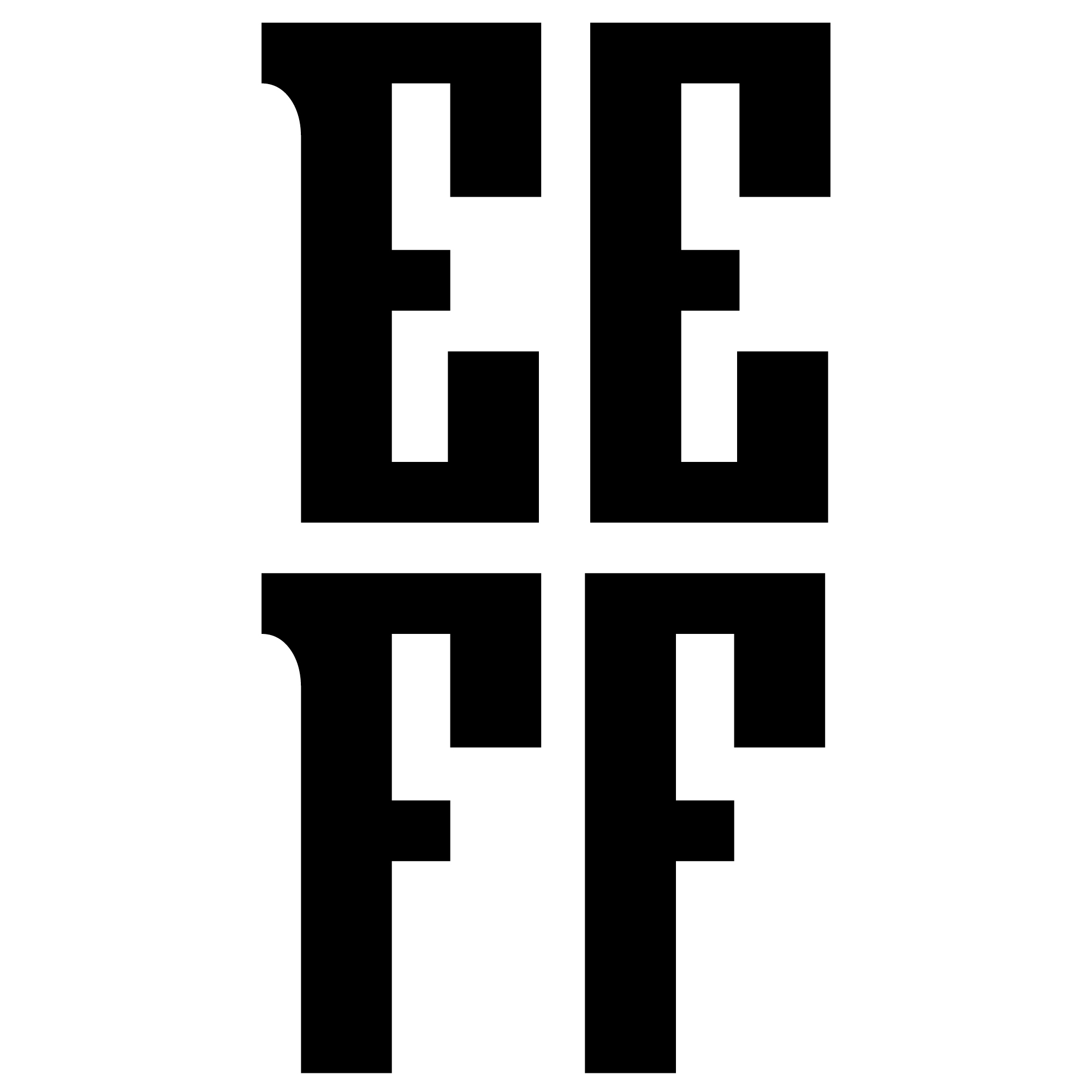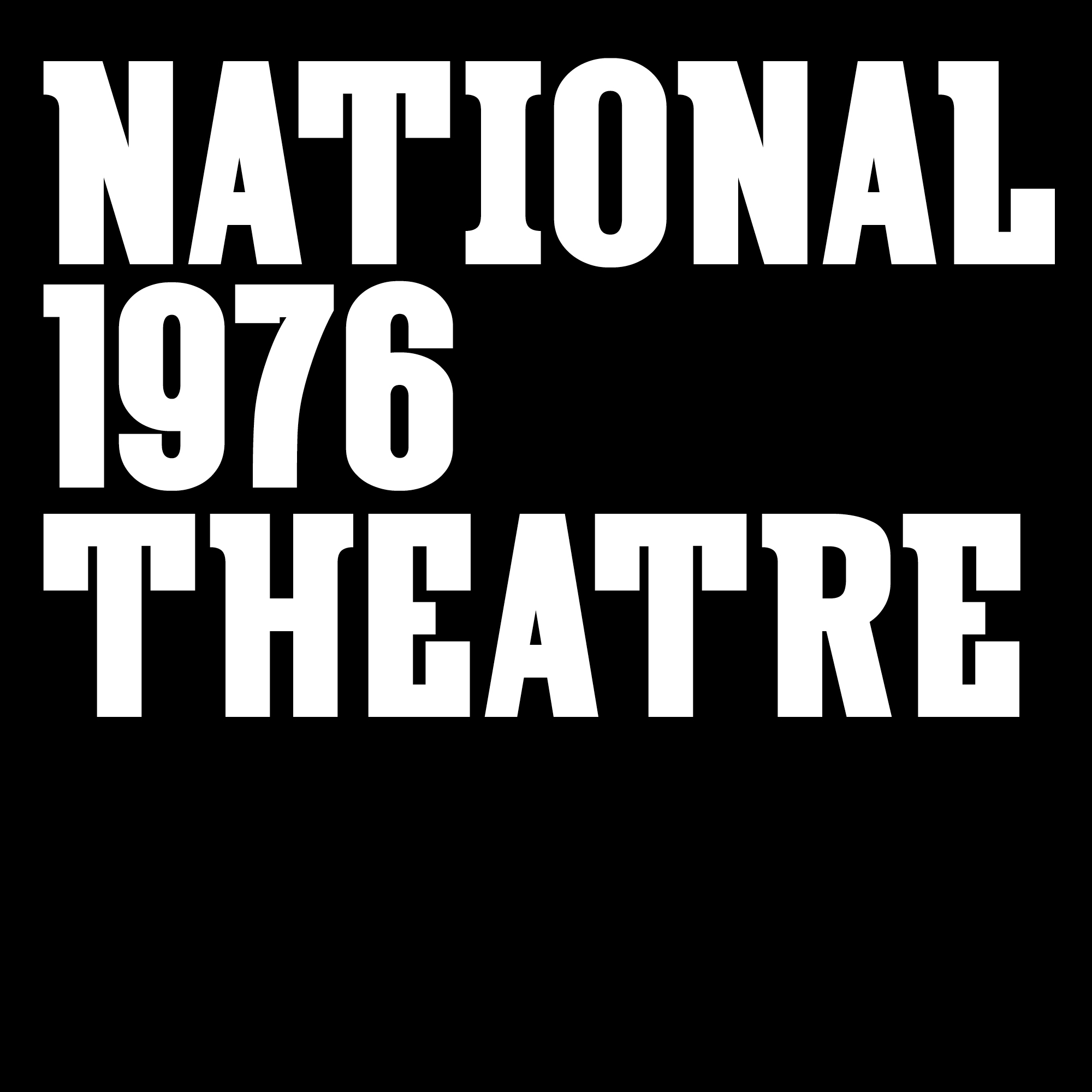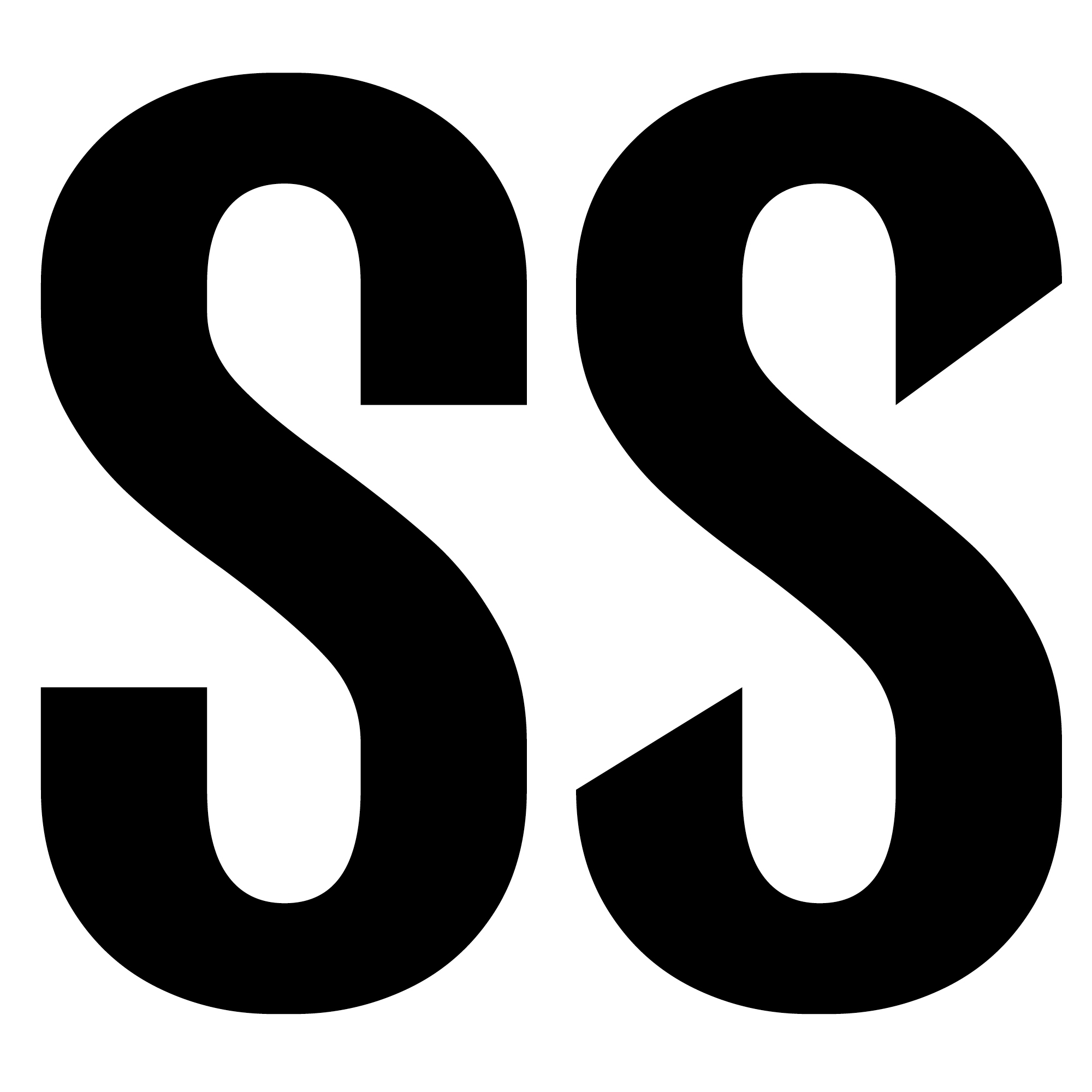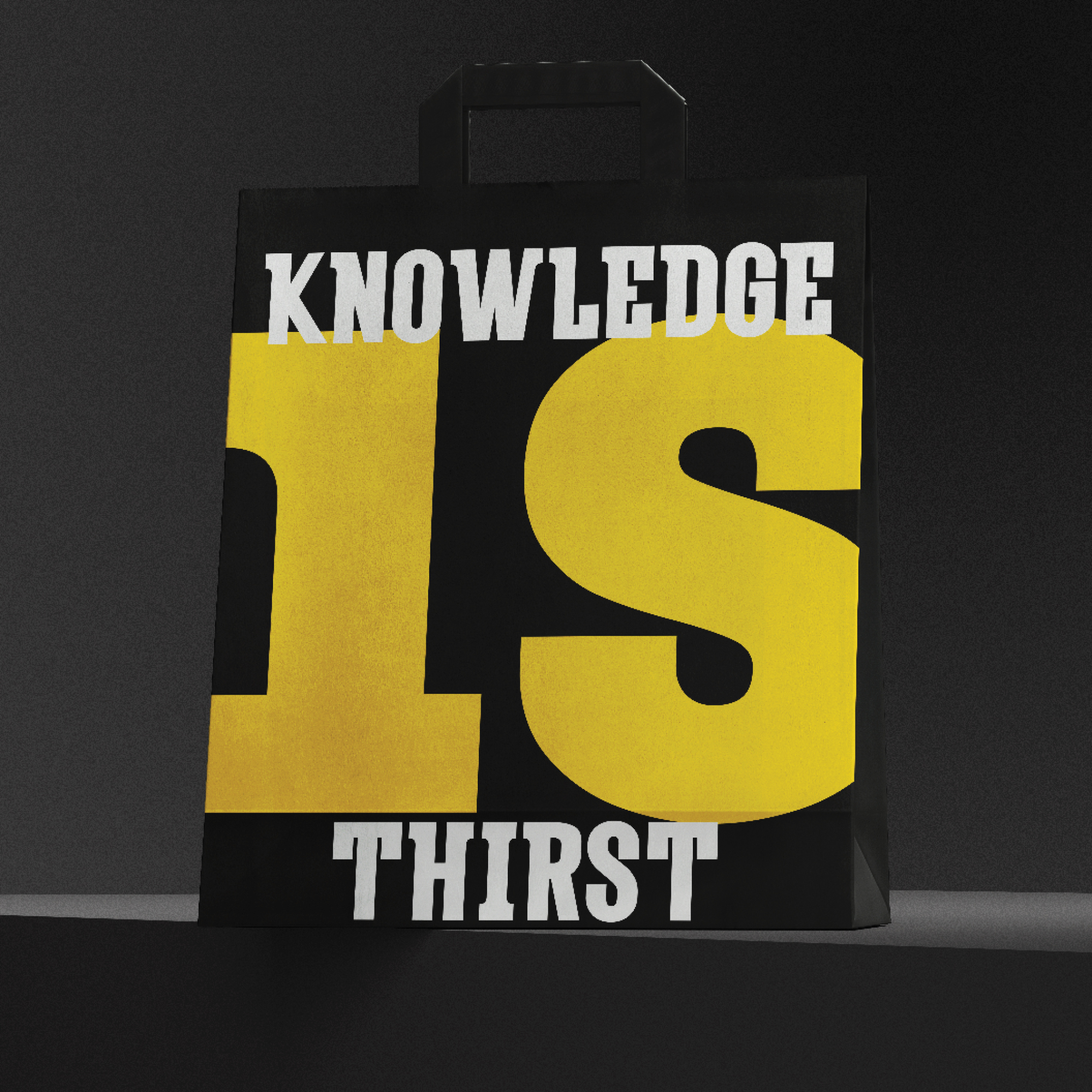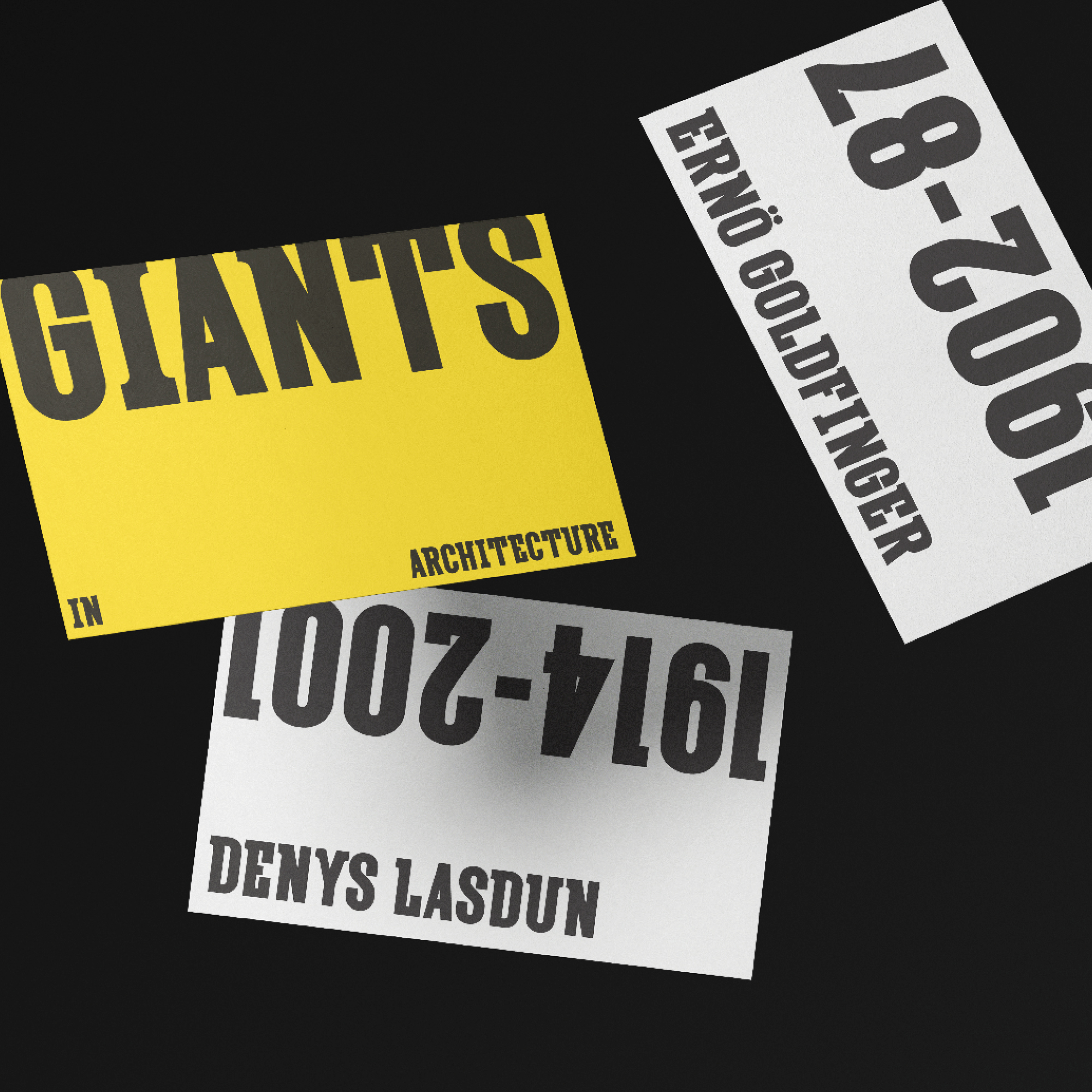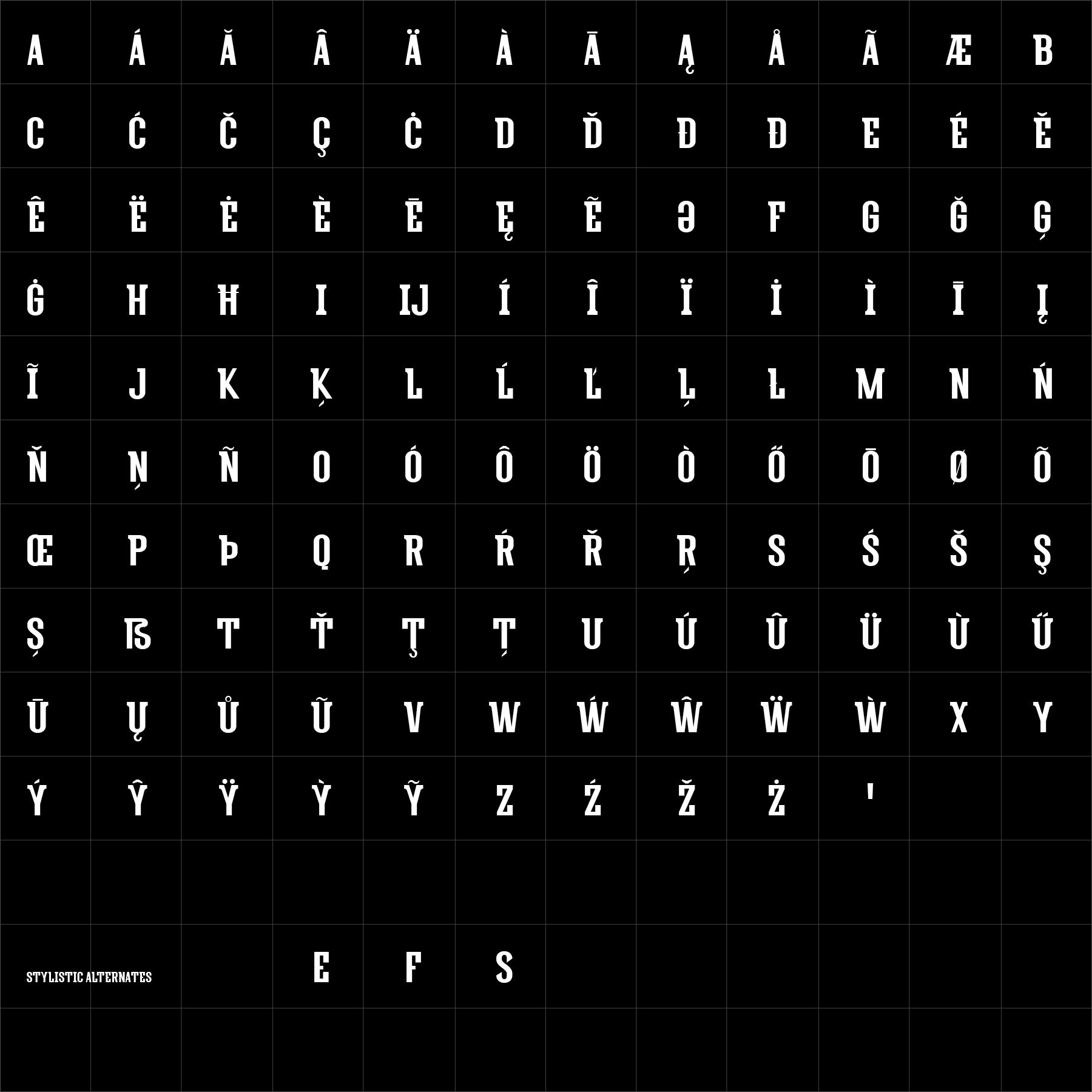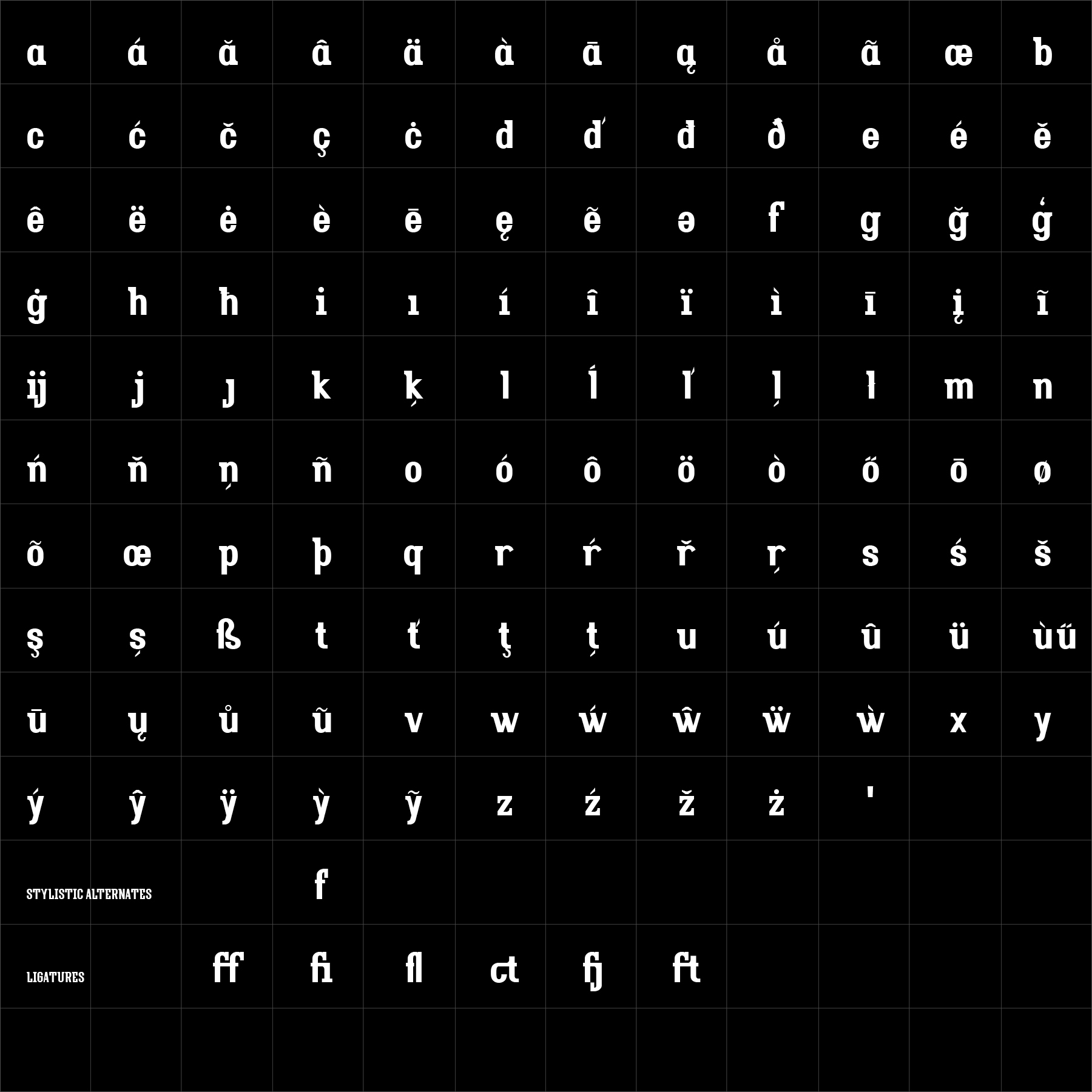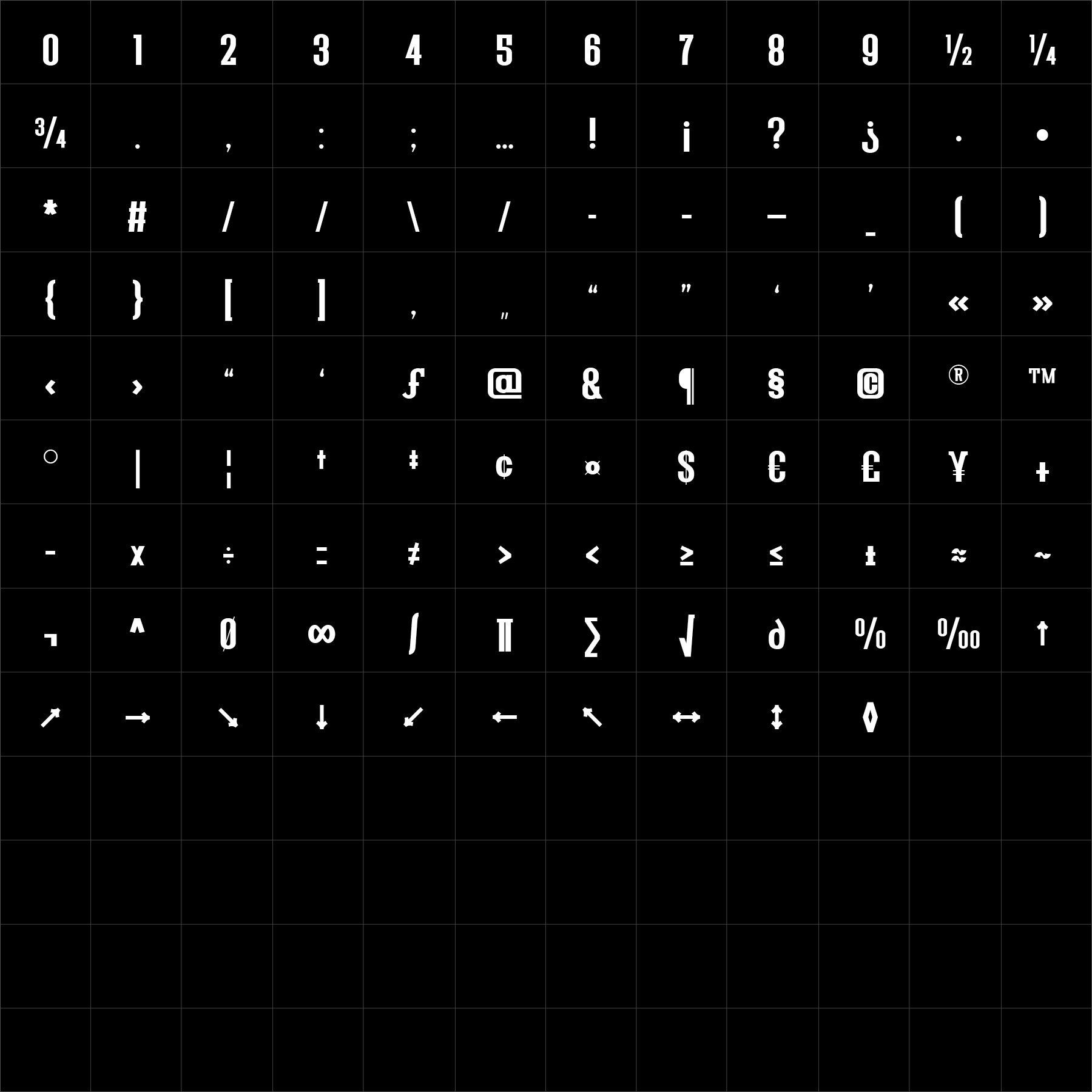
Magnesia Serif
High-Contrast Display Serif
Bring the high drama
Magnesia Serif is a high-contrast display family shaped by sculpted curves, precise details and dramatic stroke transitions. Its elegant underlying structure is balanced by an expressive rhythm that gives typography atmosphere, tension and a strong visual presence.
Magnesia Serif performs particularly well across visual identities, fashion communication, editorial design, packaging and cultural projects where typography is expected to shape mood and character as much as communicate language. Magnesia Serif gives designers a distinctive display voice with refined contrast, confident rhythm and enough expressive character to make even concise language immediately recognisable.